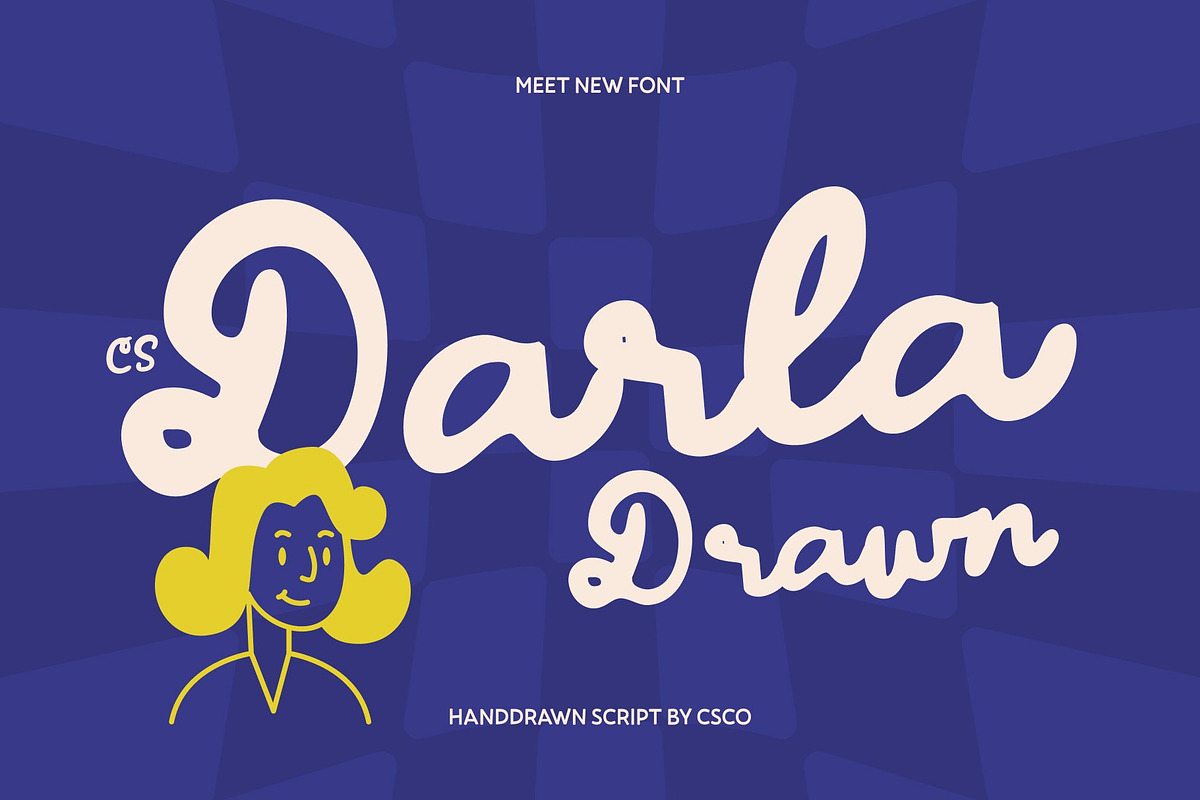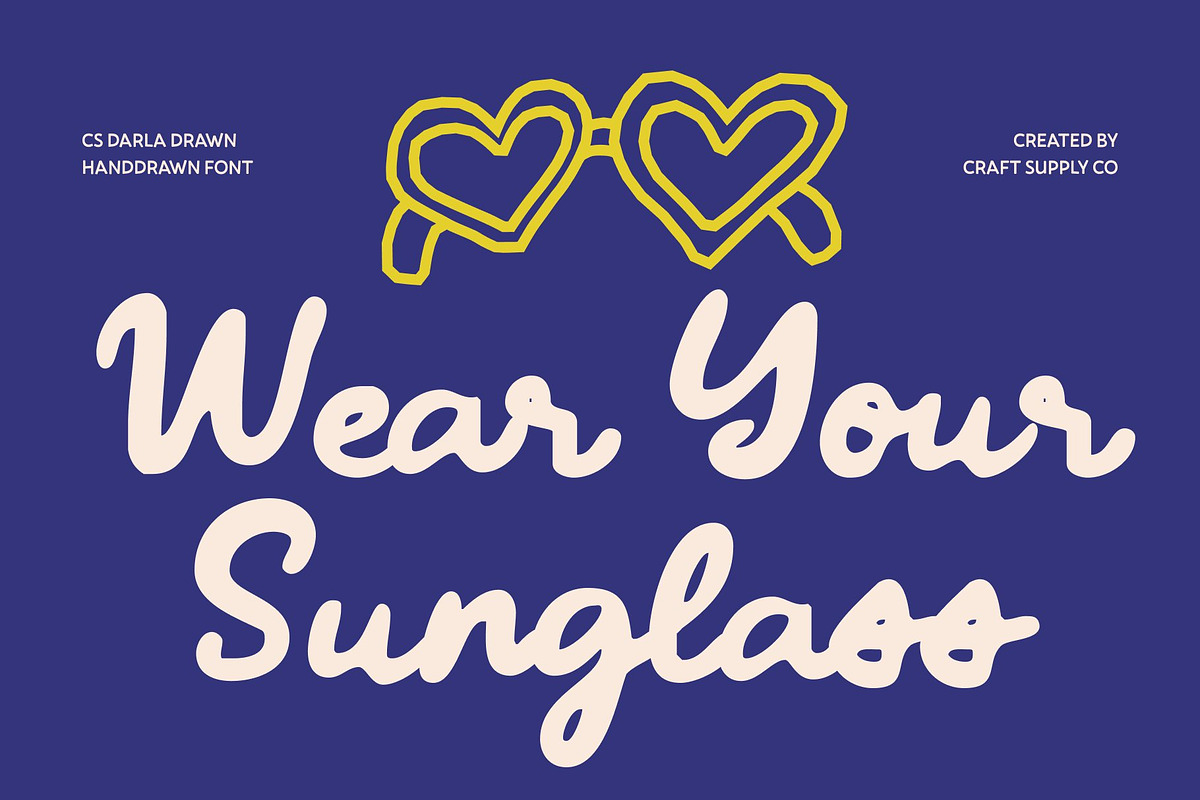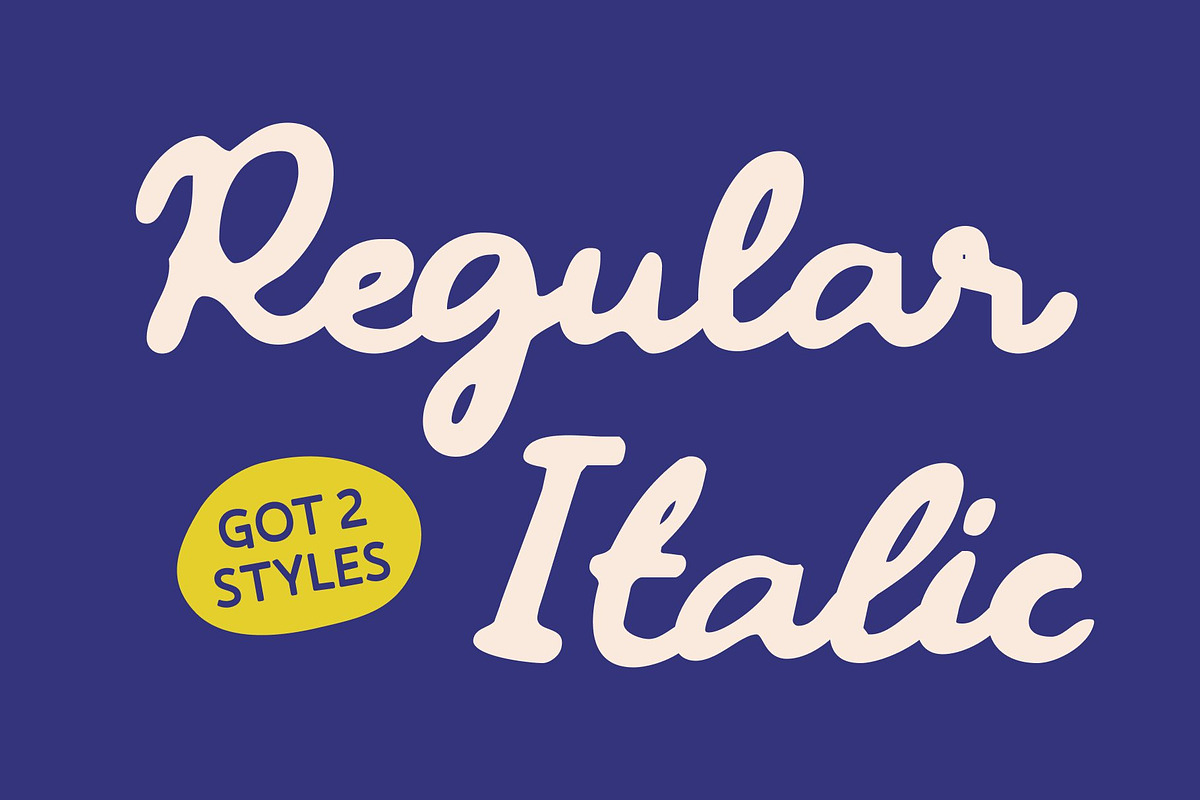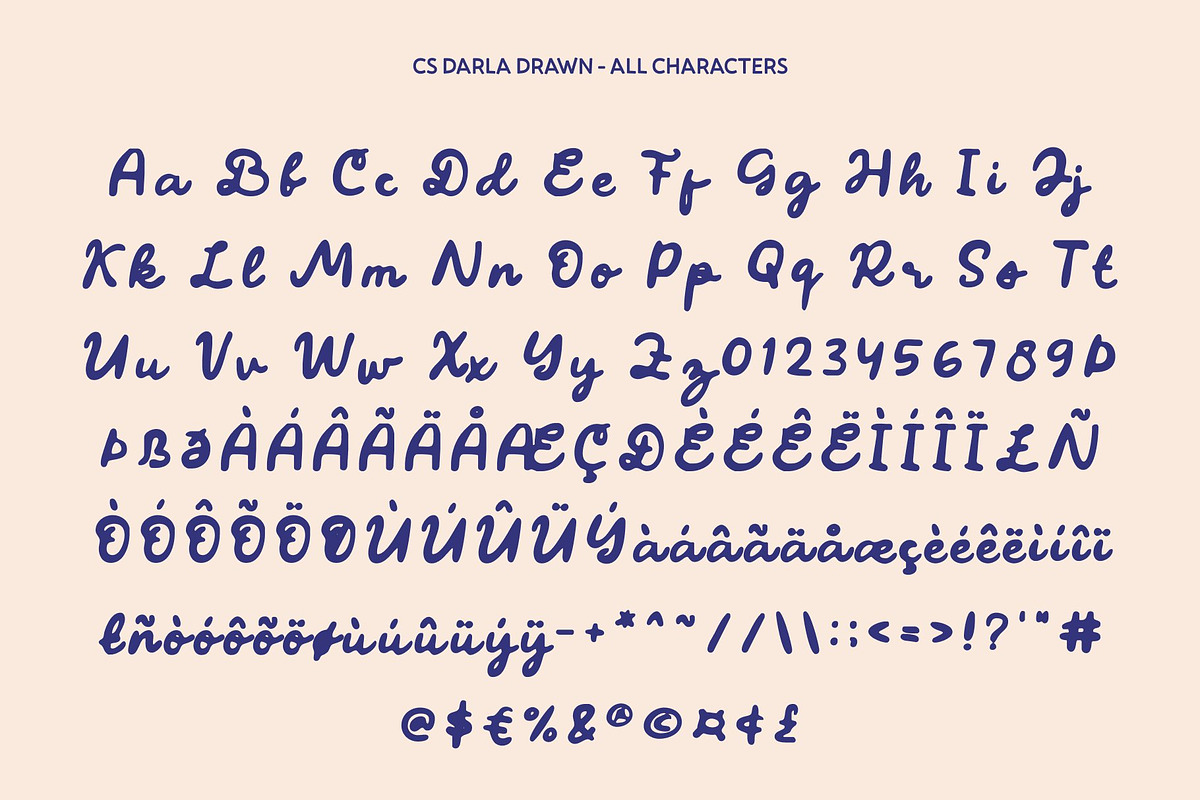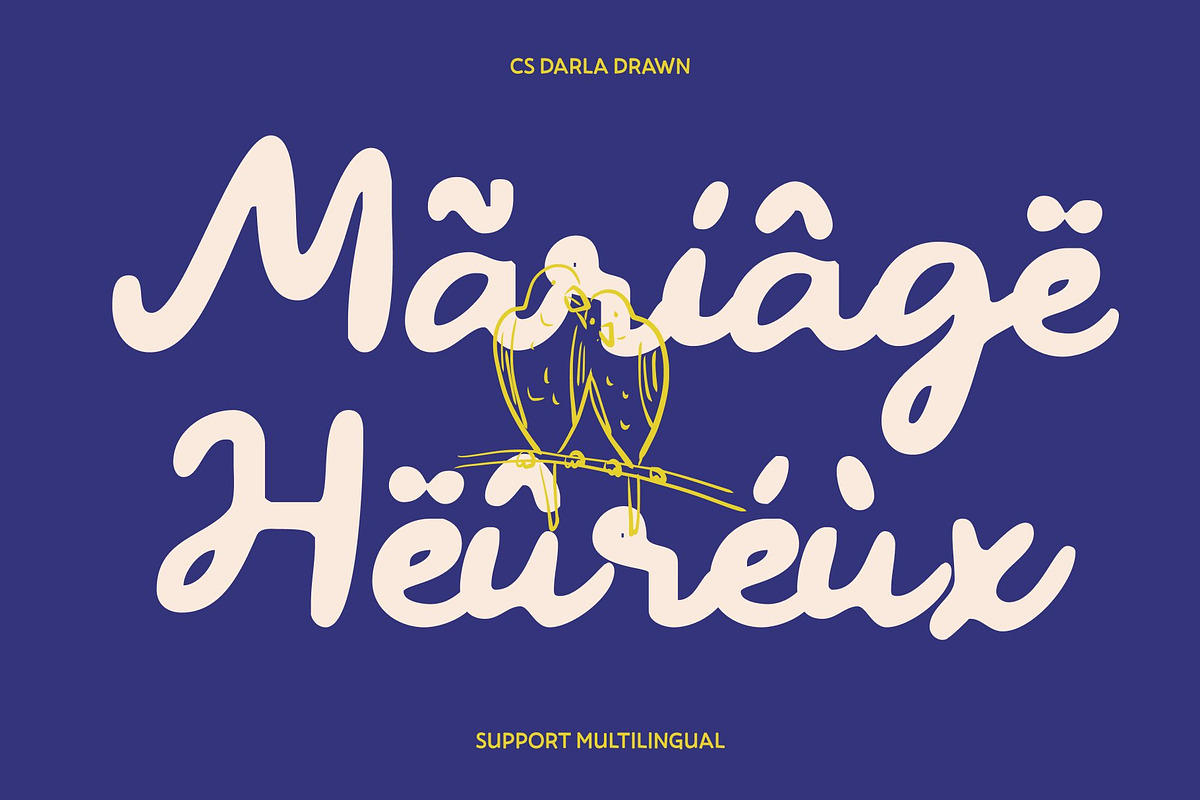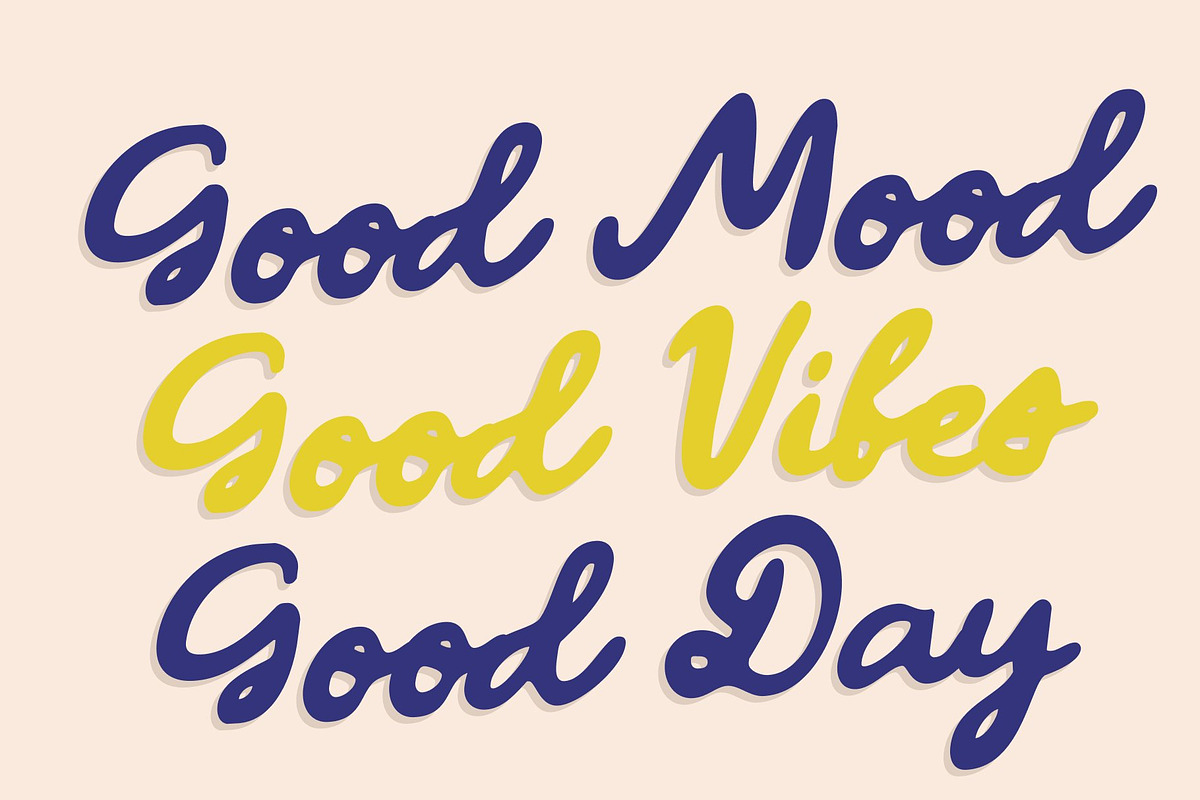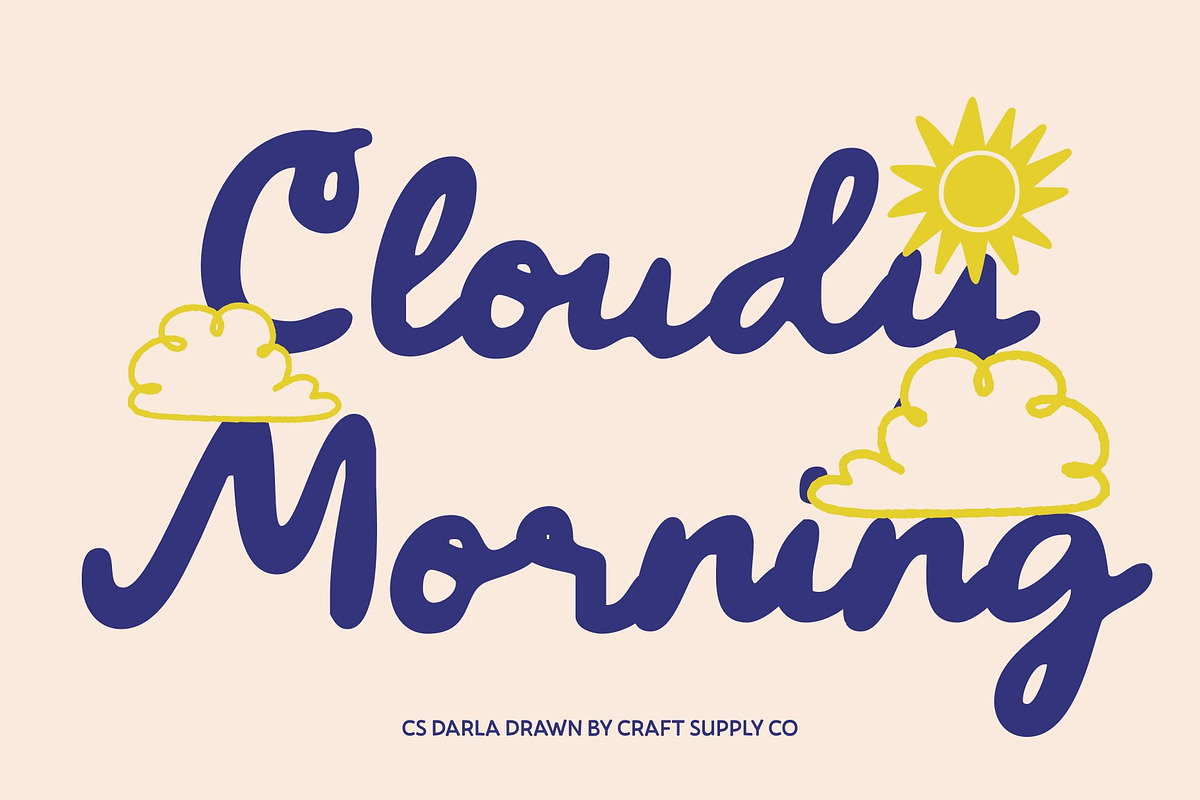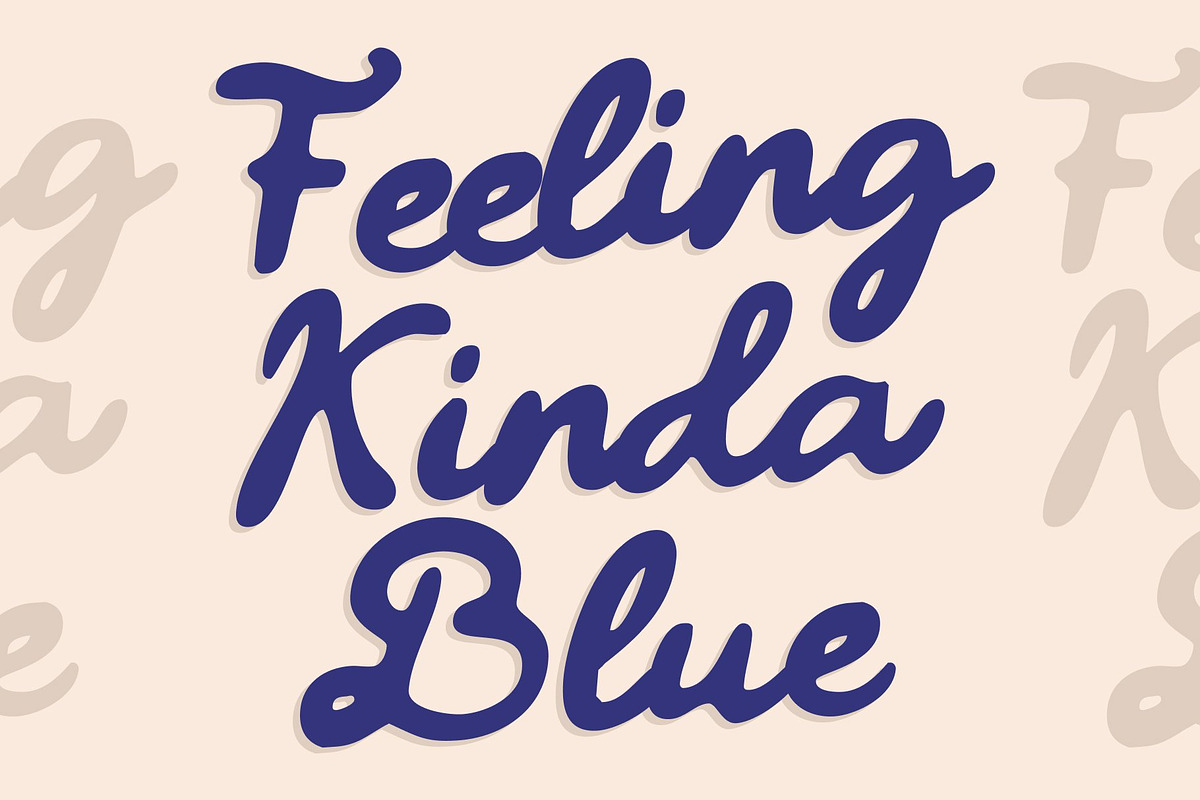
CS Darla Drawn
CS Darla Drawn – Chic Handwritten with Delicate Beauty
Chic Handwritten Script with Refined Charm This is a chic handwritten script font created to express delicate beauty and graceful individuality. Its smooth strokes and stylish flow capture modern elegance while preserving the warmth of natural handwriting. Enhanced with a drawn texture, each letter feels personal, soft, and artistically refined perfect for designs that seek sophistication with a human touch.
Delicate Strokes with Artistic Flourishes The charm of this font lies in its delicate strokes and thoughtfully placed creative flourishes. Every curve and connection is carefully balanced to add visual interest without overwhelming the composition. The hand-drawn effect introduces subtle texture, giving the font a distinctive personality that feels exclusive, elegant, and beautifully crafted.
Elegant Expression for Stylish Visuals This font communicates beauty through gentle movement and a harmonious rhythm. Its chic handwritten style delivers intimacy and authenticity, making designs feel expressive yet polished. This refined character makes it ideal for visual storytelling that values softness, elegance, and emotional connection.
Perfect for Branding, Invitations, and Fashion Graphics Designed for versatile creative use, this font shines in branding, invitations, fashion graphics, packaging, and editorial layouts. Its elegant handwritten form and artistic drawn texture make it especially suitable for beauty brands, wedding stationery, boutique logos, and lifestyle visuals that demand a graceful and stylish presence.